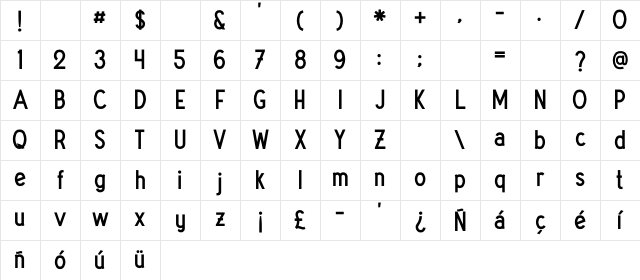
Vintage Avalanche Black
Vintage Avalanche Family
Vintage Avalanche Black
Design Context for Vintage Avalanche
Vintage Avalanche wears its vintage influences proudly, with letterforms that recall mid-century signage, classic packaging, and nostalgia-driven design.
Font Pairing: Combine Vintage Avalanche with a simple slab or neutral sans - period-accurate companions reinforce the vintage feel without competing for attention.
Pro Tip: Lean into Vintage Avalanche's period character by pairing it with aged paper textures, muted colour palettes, and vintage illustration styles.